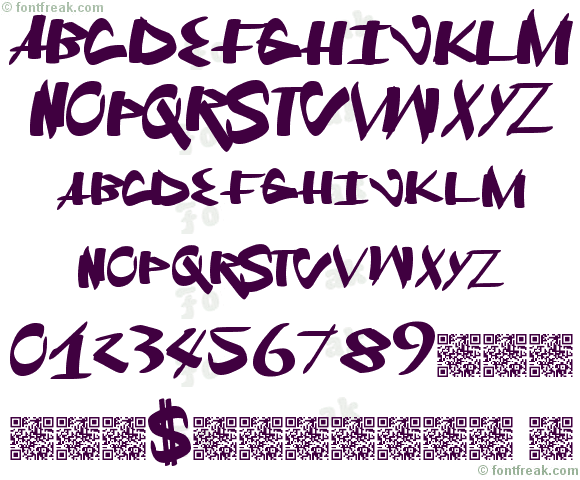
FreshTrack
FreshTrack is a captivating handwritten font designed by XEROGRAPHER FONTS. This font falls into the script category, showcasing an organic, flowing style that evokes a sense of creativity and personal touch. The letters are characterized by their playful curves and slightly irregular shapes, giving it a lively and informal appearance. The stroke weight varies subtly, adding depth and character to each character, while the overall spacing is thoughtfully balanced to ensure readability without sacrificing style.
FreshTrack is ideal for a variety of applications. It shines in wedding invitations, where its whimsical nature can convey romance and elegance. For small businesses, it can be a perfect choice for branding materials, such as logos and signage, as it creates a friendly and approachable image. In the realm of event promotions, this font works wonderfully on posters and flyers, grabbing attention with its dynamic flair. Additionally, FreshTrack can enhance the visual appeal of restaurant menus, offering a unique and inviting presentation that sets the tone for a delightful dining experience.
The target audience for this font includes graphic designers, small business owners, and content creators looking to add a personal touch to their projects. Whether you're crafting a heartfelt message or designing eye-catching promotional materials, FreshTrack offers versatility and charm.
What truly sets FreshTrack apart is its ability to blend modern aesthetics with a handwritten feel, making it a standout choice for anyone aiming to create a memorable visual impact. With its fresh and engaging style, the FreshTrack font free download provides an exciting opportunity to elevate your designs while maintaining a unique and approachable character.